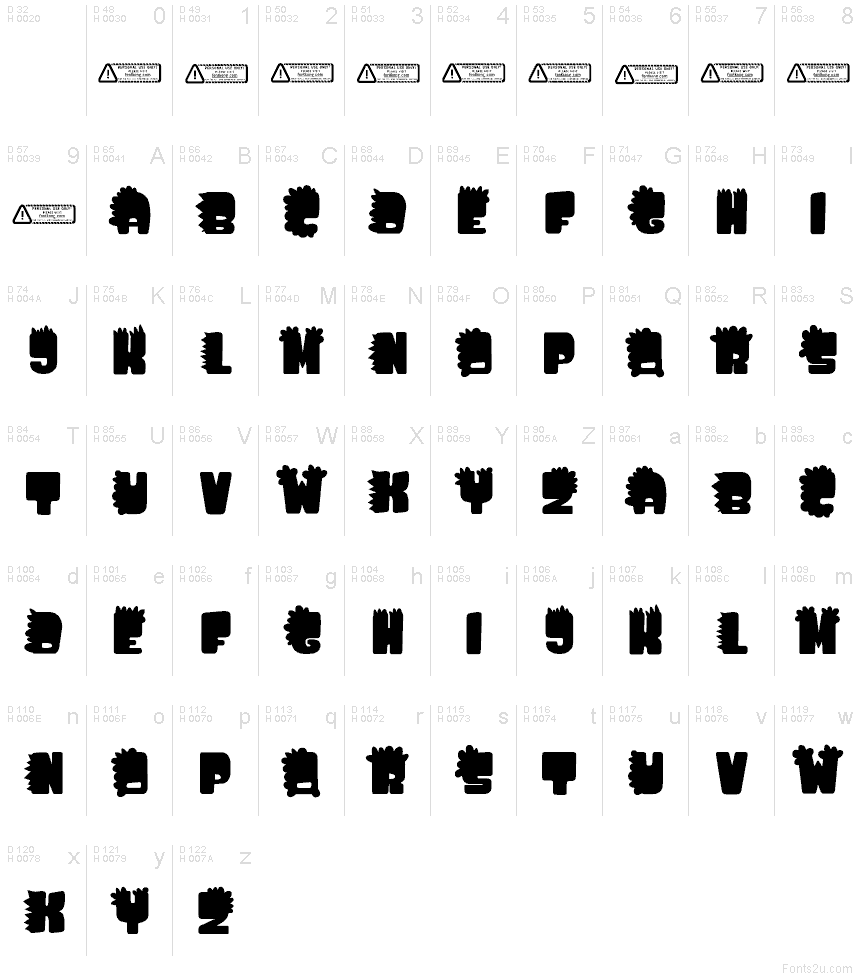
Little Dino font by Kong Font is a cheerful and expressive display font that instantly captures attention. With irregular outlines and quirky embellishments, this decorative bold font gives off an adventurous and imaginative feeling. Whether viewed as it is or with the fun elements in mind, its aesthetic is immediately approachable.
Make use of Little Dino in your kids’ book covers, comic books, t-shirts design, movie posters for kids, packaging designs, invitations cards to birthdays or baby showers and toy labels. This free font can also be used to create greeting cards for children’s occasions or even fun animated scenes for educational apps.